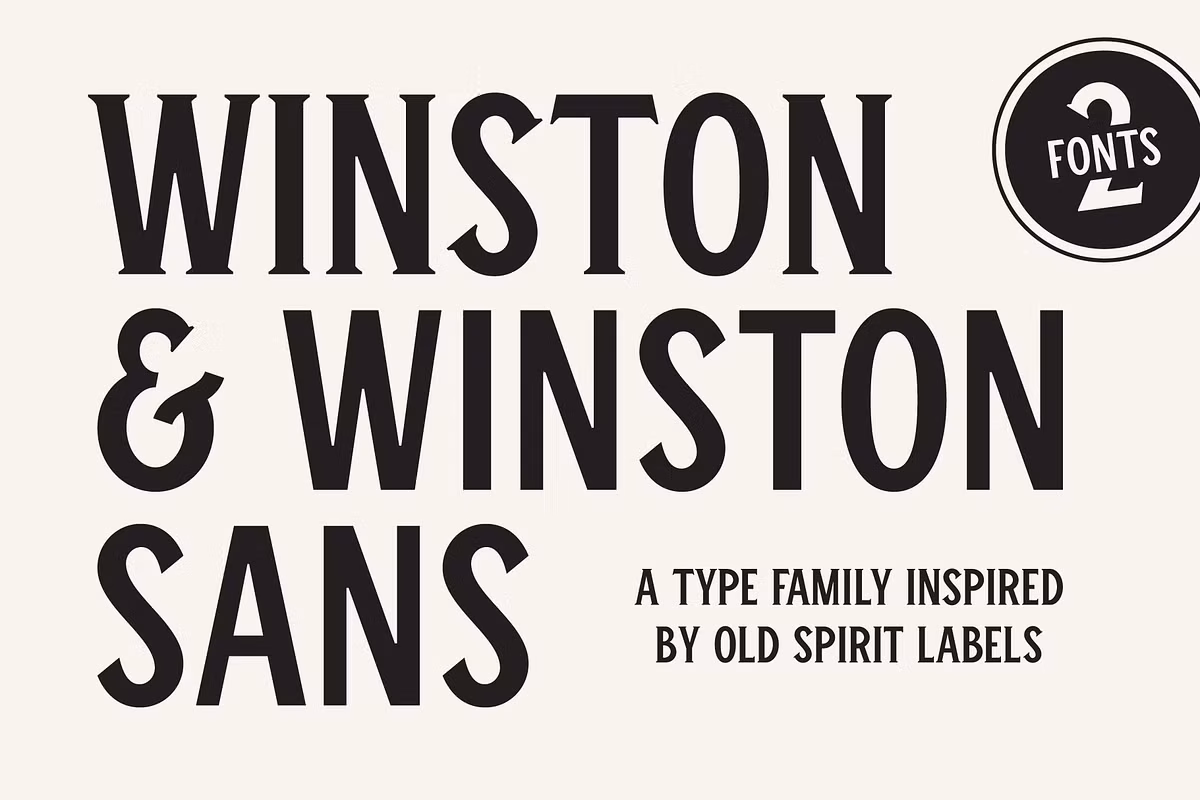
Winston & Winston Sans - 2 Fonts Free Download
Winston & Winston Sans – 2 Fonts Free Download
The duo includes two distinct fonts—one with refined serifs for a timeless, professional look, and the other with a clean, minimalist sans-serif design that’s ideal for contemporary projects. Both fonts include uppercase and lowercase letters, numerals, punctuation, and multilingual support, providing flexibility for global design applications.
Whether you’re designing a modern brand identity, crafting professional editorial content, or creating stylish marketing materials, Winston & Winston Sans brings elegance and versatility to your typography.